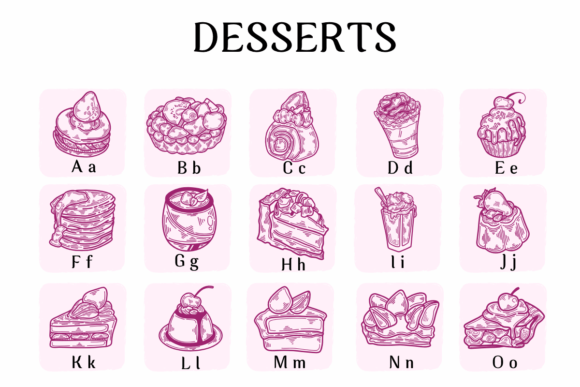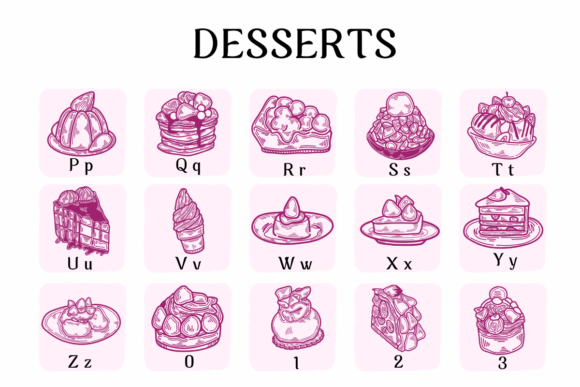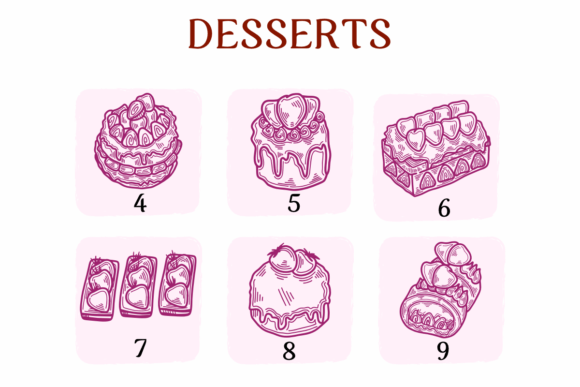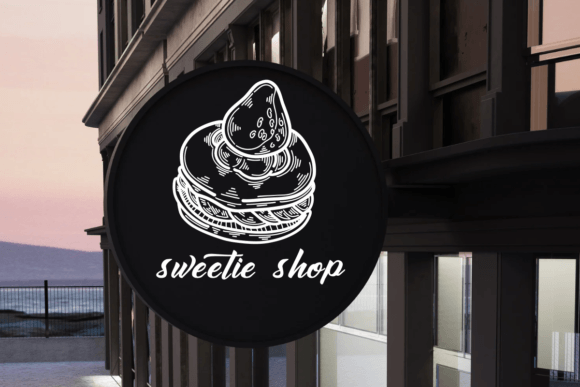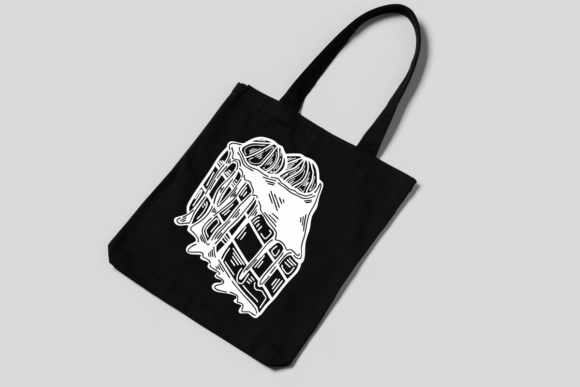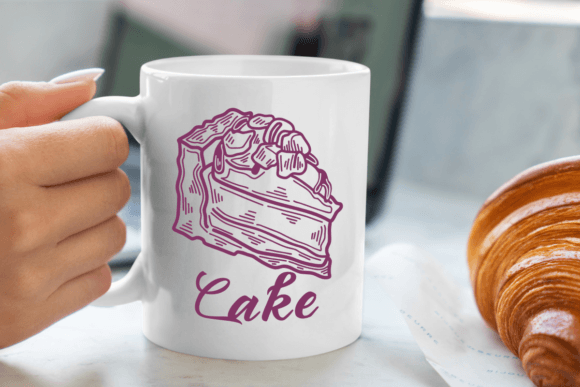
Desserts Font: A Deliciously Creative Addition to Your Design Projects
Are you a designer, crafter, or DIY enthusiast looking for a unique and creative font to add a personal touch to your projects? Look no further than Desserts Font, a charming dingbats font with a sketch style theme that’s sure to delight. In this article, we’ll dive into the world of Desserts Font and explore how it can enhance your creative projects, from wedding invitations to logos and beyond.
What is Desserts Font?
Desserts Font is a dingbats font that features a delightful sketch style theme, perfect for adding a touch of whimsy and personality to your designs. Dingbats fonts, also known as symbol fonts, are a type of font that features graphical symbols, such as icons, shapes, and illustrations, rather than traditional letterforms. Desserts Font takes this concept to the next level with its adorable dessert-themed illustrations, including cupcakes, ice cream cones, donuts, and more.
How Can I Use Desserts Font?
The possibilities are endless when it comes to using Desserts Font in your creative projects. Here are just a few ideas to get you started:
- Wedding Invitations: Add a touch of sweetness to your wedding invitations with Desserts Font. Use the illustrations to create custom icons, borders, or even a beautiful monogram.
- DIY Crafts: Desserts Font is perfect for DIY crafters who love to create handmade cards, gift tags, and other paper crafts. Use the illustrations to add a personal touch to your creations.
- Decorations: Create custom decorations for your next party or event with Desserts Font. Design your own banners, garlands, and other decorative elements using the illustrations.
- Logos: Use Desserts Font to create a unique and memorable logo for your business or brand. The illustrations can be used to represent your company’s personality and values.
- Social Media Graphics: Add a touch of fun and personality to your social media graphics with Desserts Font. Create custom illustrations and icons to use in your posts and stories.
Why Choose Desserts Font?
So why choose Desserts Font over other dingbats fonts? Here are just a few reasons:
- Unique Illustrations: Desserts Font features a wide range of unique and adorable illustrations that are sure to delight. From sweet treats to baking utensils, the illustrations are both fun and functional.
- Scalable: The illustrations in Desserts Font are scalable, meaning they can be used in a variety of sizes and resolutions without losing quality.
- Versatile: Desserts Font is versatile and can be used in a wide range of creative projects, from digital designs to print materials.
Tips and Tricks for Using Desserts Font
Here are a few tips and tricks for getting the most out of Desserts Font:
- Experiment with Colors: Don’t be afraid to experiment with different colors and color combinations when using Desserts Font. The illustrations look great in bold, bright colors, but can also be used in more subtle, pastel shades.
- Mix and Match: Mix and match the illustrations in Desserts Font to create unique and interesting combinations. For example, pair a cupcake illustration with a baking utensil icon for a fun and playful design.
- Use as a Background: Use the illustrations in Desserts Font as a background element to add texture and interest to your designs.
Desserts Font is a deliciously creative addition to any design project. With its unique illustrations, ease of use, and versatility, it’s the perfect font for designers, crafters, and DIY enthusiasts who want to add a personal touch to their creations. Whether you’re designing wedding invitations, DIY crafts, or logos, Desserts Font is sure to delight. So why wait? Download Desserts Font today and start creating your own sweet designs!